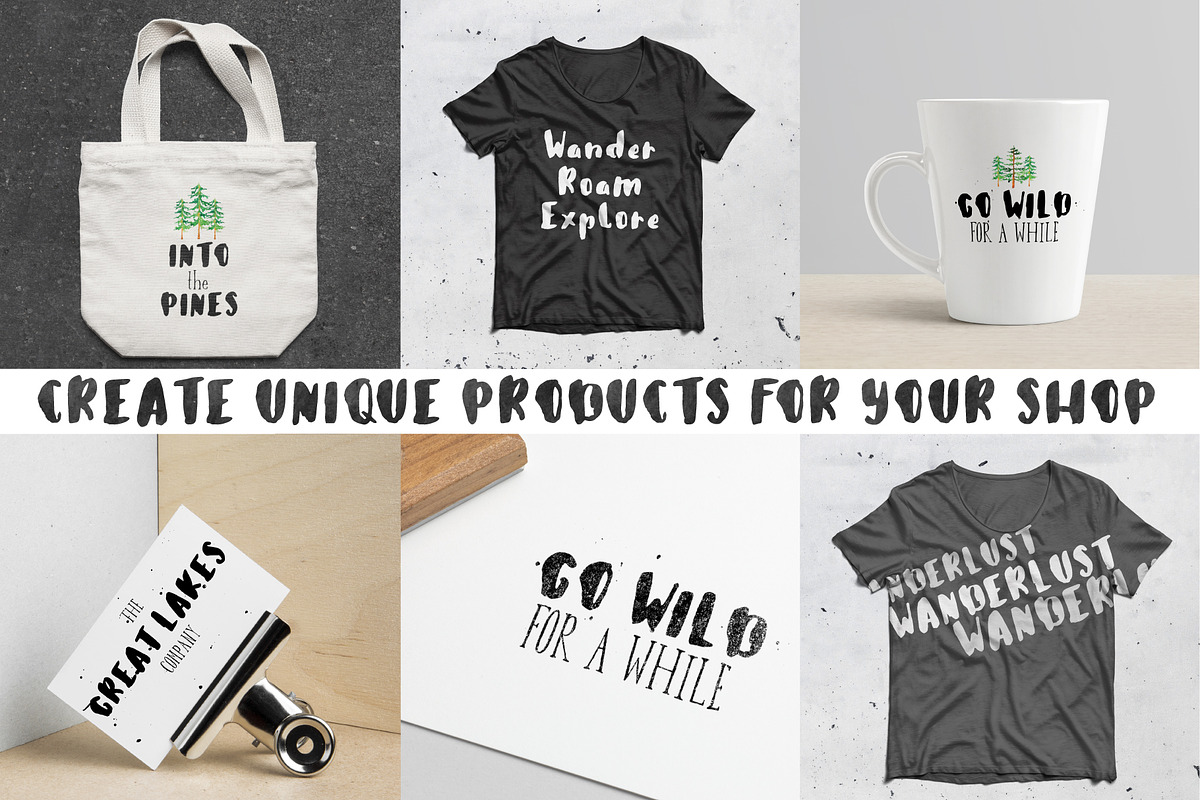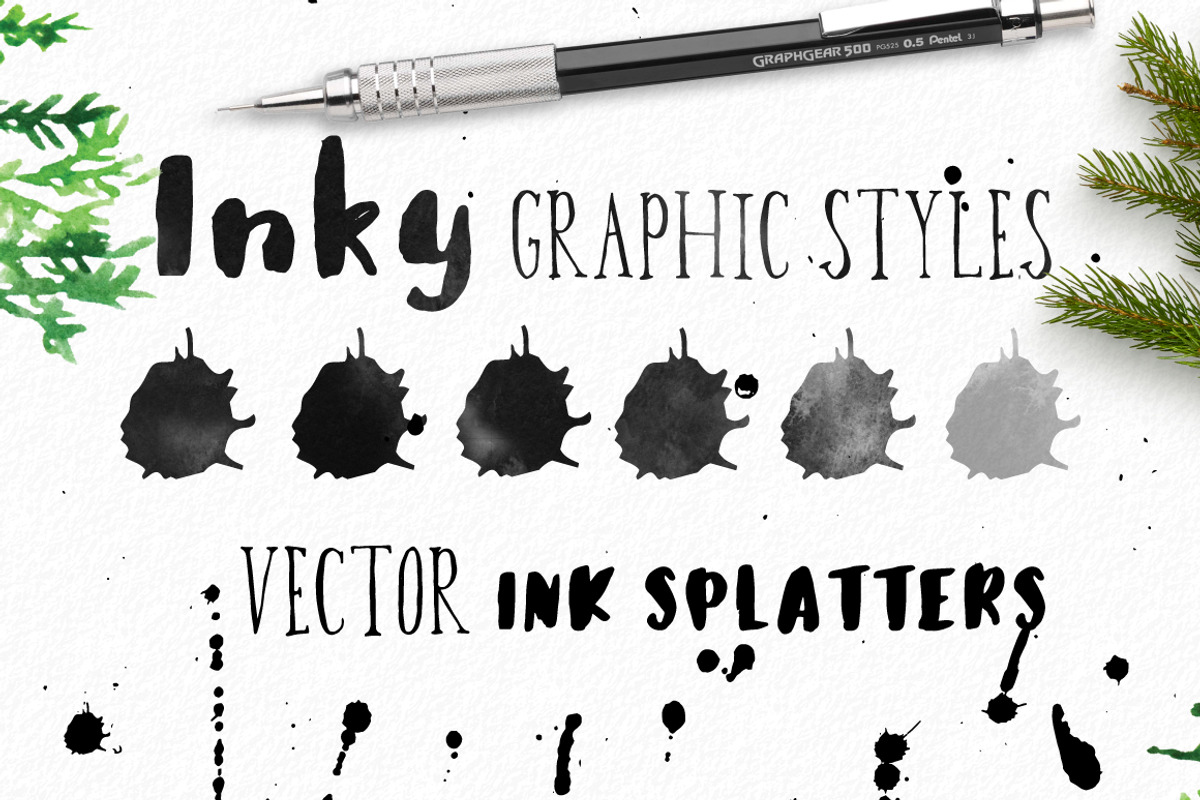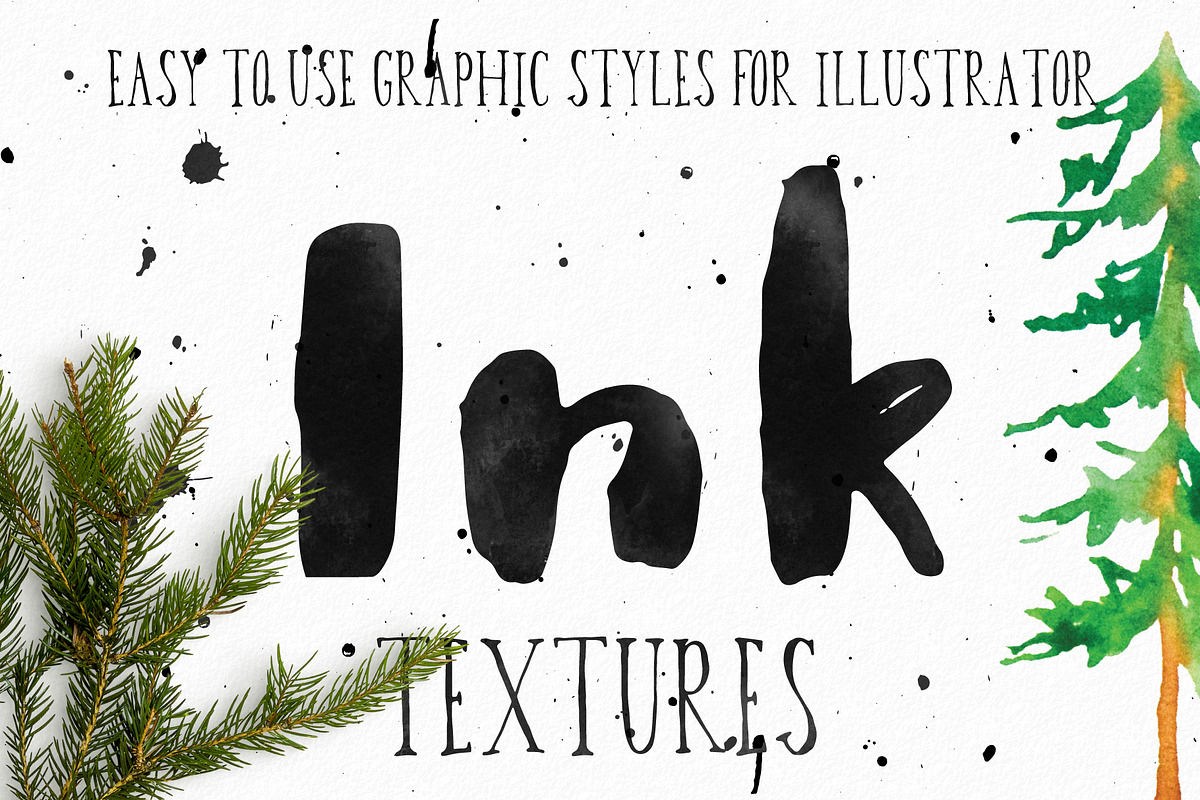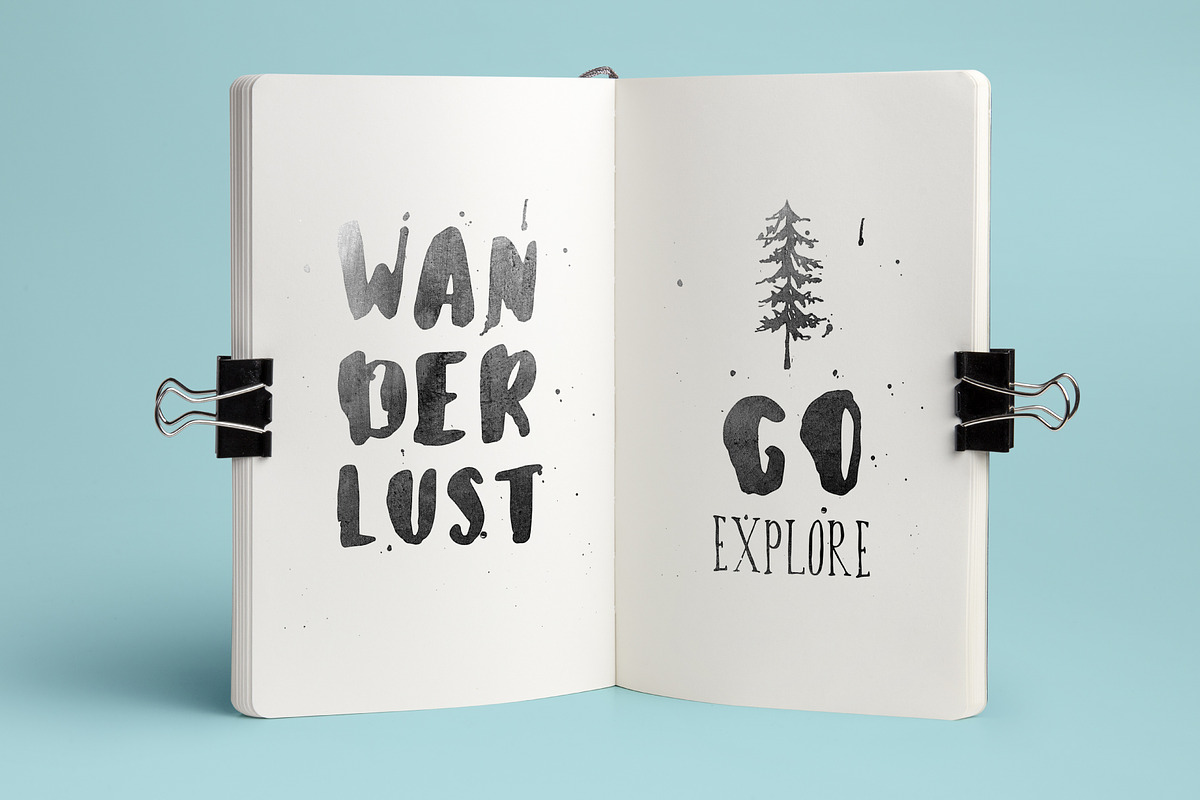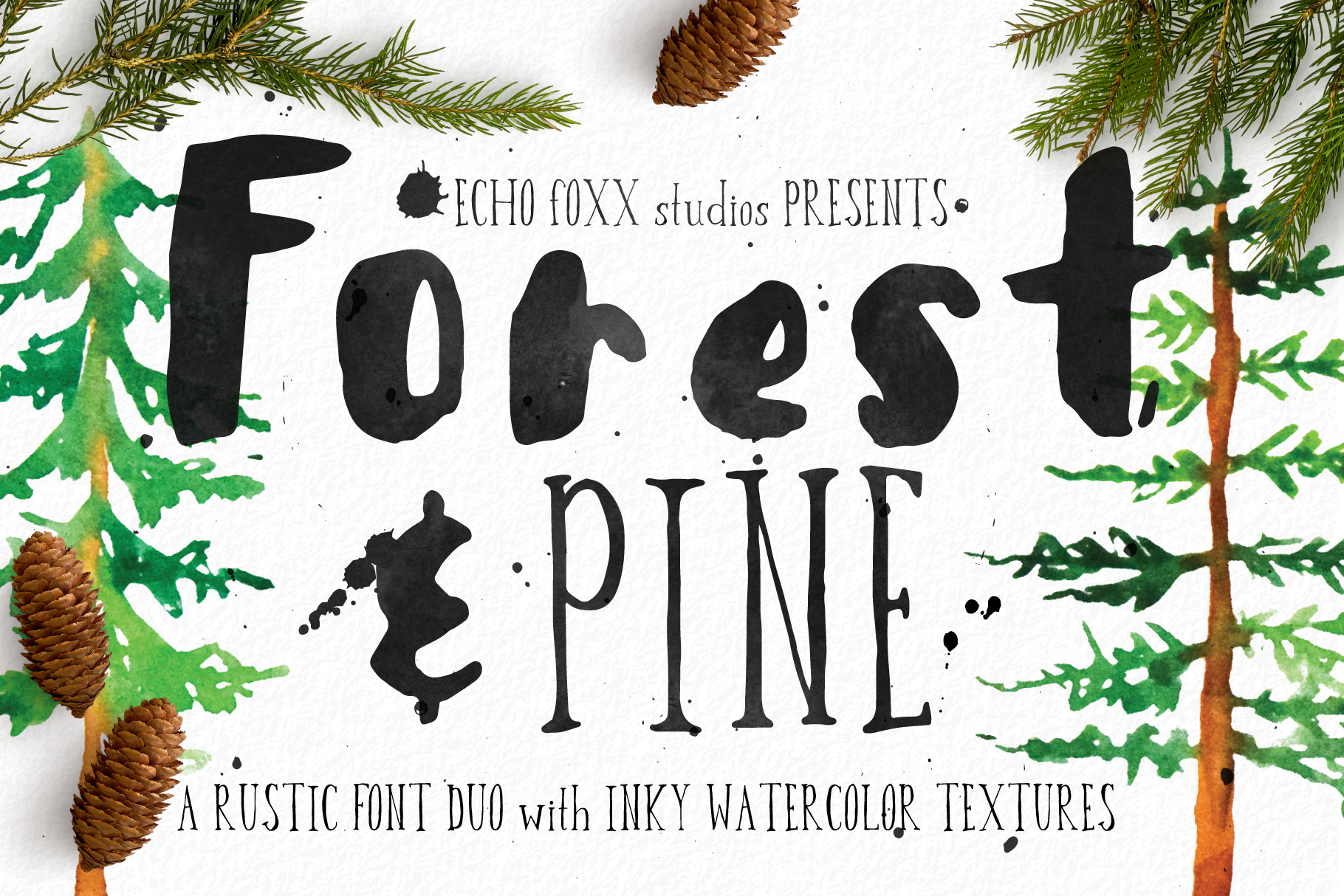
Forest & Pine Textured Font Bundle
I'm excited to introduce my new Font Duo: Forest & Pine created with Fontself!
These hand written typefaces come with 6 Inky graphic styles and 12 ink splatters to add texture to your designs. The Ink Textures can be applied to fonts, icons or other vector objects. Use Forest & Pine to create rustic outdoorsy logos, inspirational posters, unique business cards, textured stationary and more.